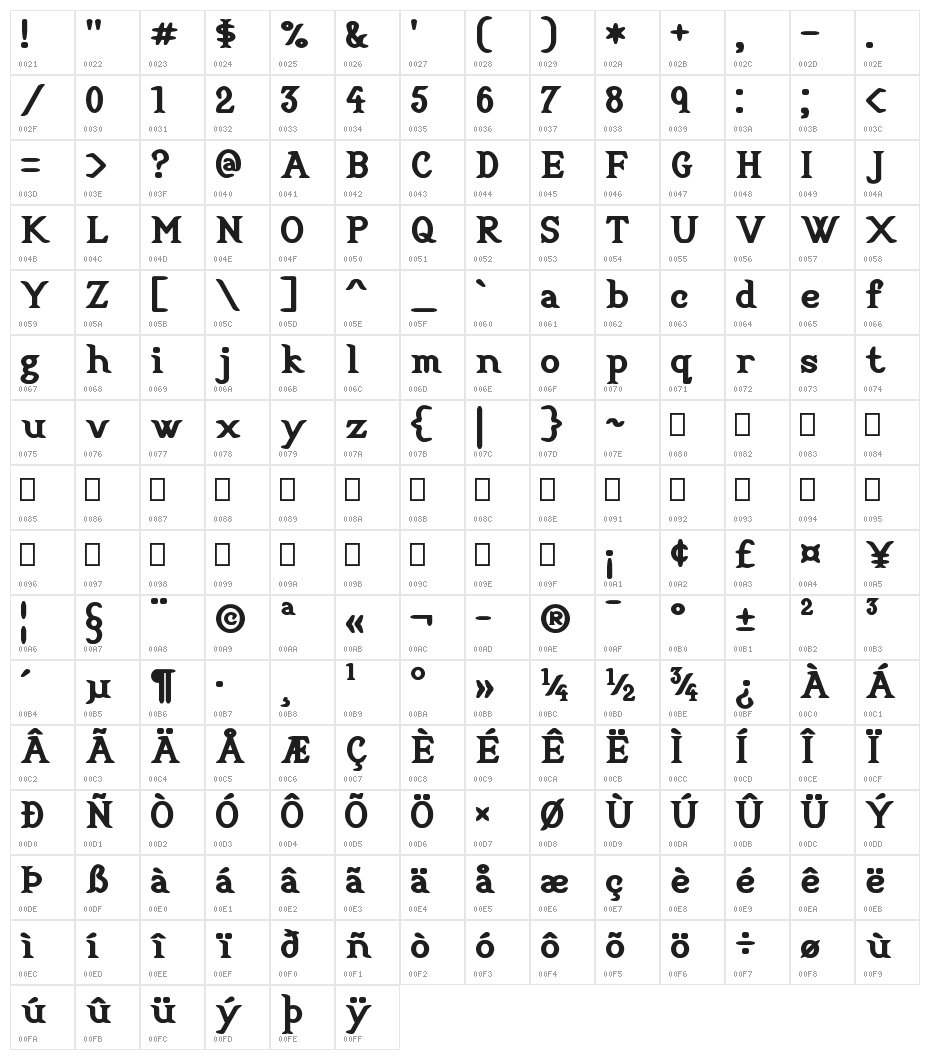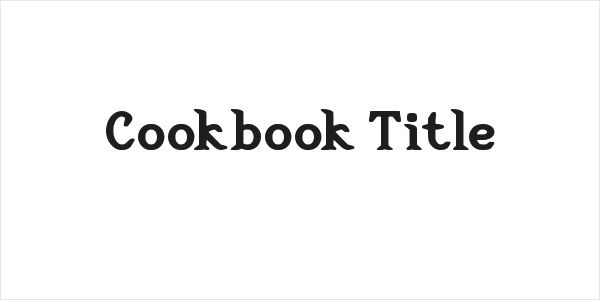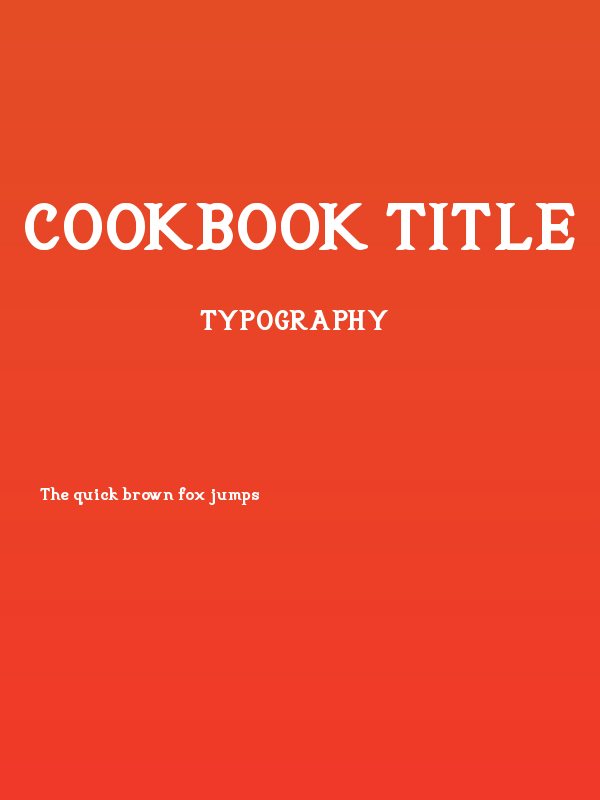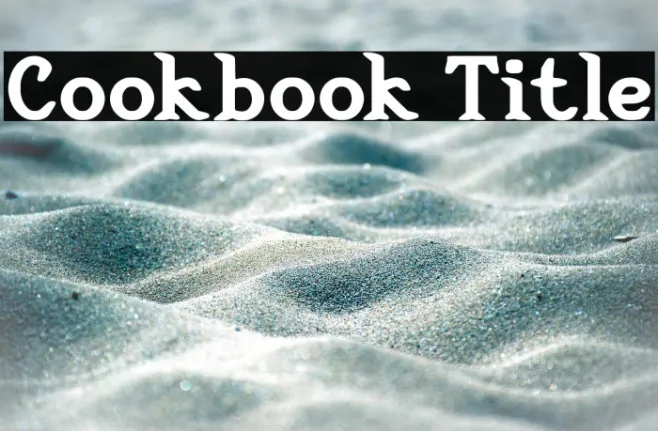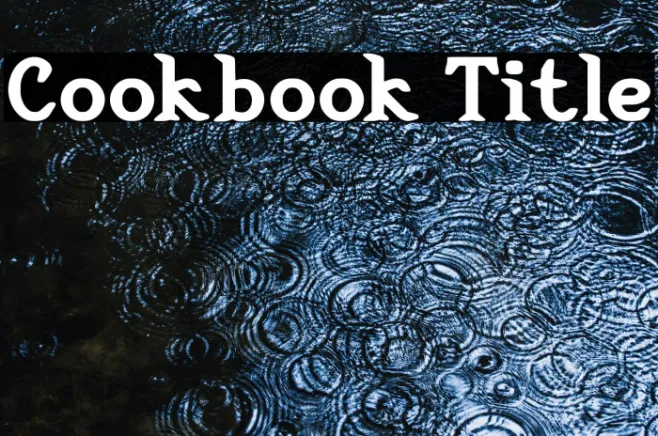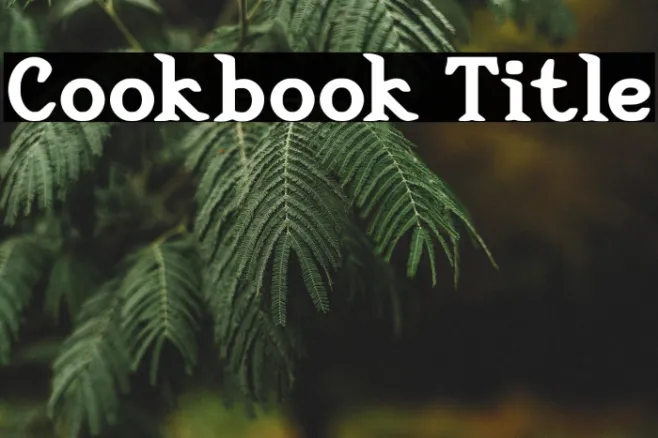
Cookbook Title Font
This font features a bold and playful style with rounded serifs and a slightly condensed form. The characters exhibit a whimsical charm, making it ideal for creative and informal applications. The uppercase letters are robust and commanding, while the lowercase letters maintain a friendly and approachable appearance. The numerals are consistent with the overall style, ensuring readability and visual harmony. Special characters are well-integrated, adding to the font's versatility. The font's design is reminiscent of vintage signage, offering a nostalgic yet modern appeal.
| Proposed Projects | Ideal for cookbook titles, children's books, posters, and branding projects that require a playful yet classic touch. |